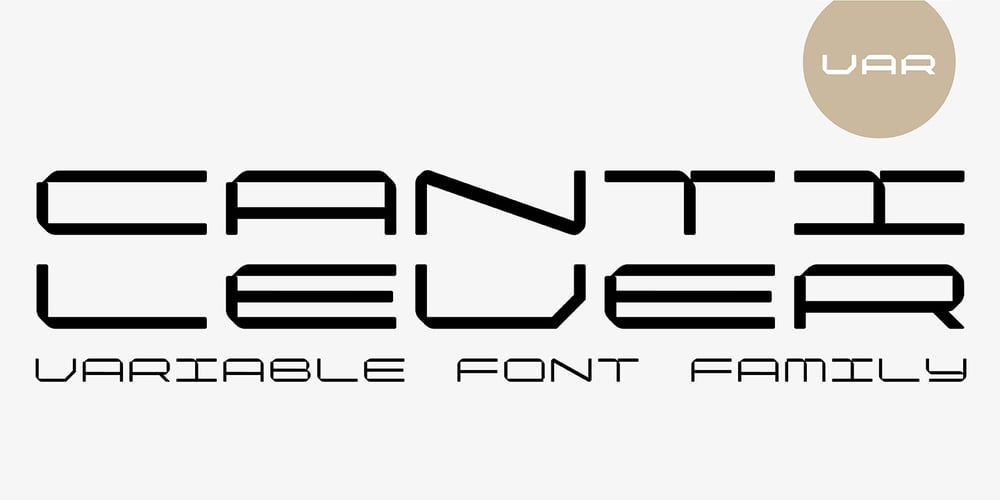
Cantilever Font Family was designed by Stew Deane and published by Meat Studio. Cantilever contains 26 styles and family package options. Cantilever is a variable, 20 style display typeface designed by Stew Deane. The idea came from using variable type mechanics to create a typeface that became more than type — it’s designed to be impactful, fill space and turn text into something graphic and visual. Being fixed-width (at whatever width you choose) means it is perfect for stacking, as well as stretching ultra wide. It’s a typeface designed to take centre stage and own space.By using the variable sliders in your design software you can give your typography a bespoke, ownable aesthetic. The sliders in Cantilever are Weight and Width, and are designed for maximum impact in any space. Play around.